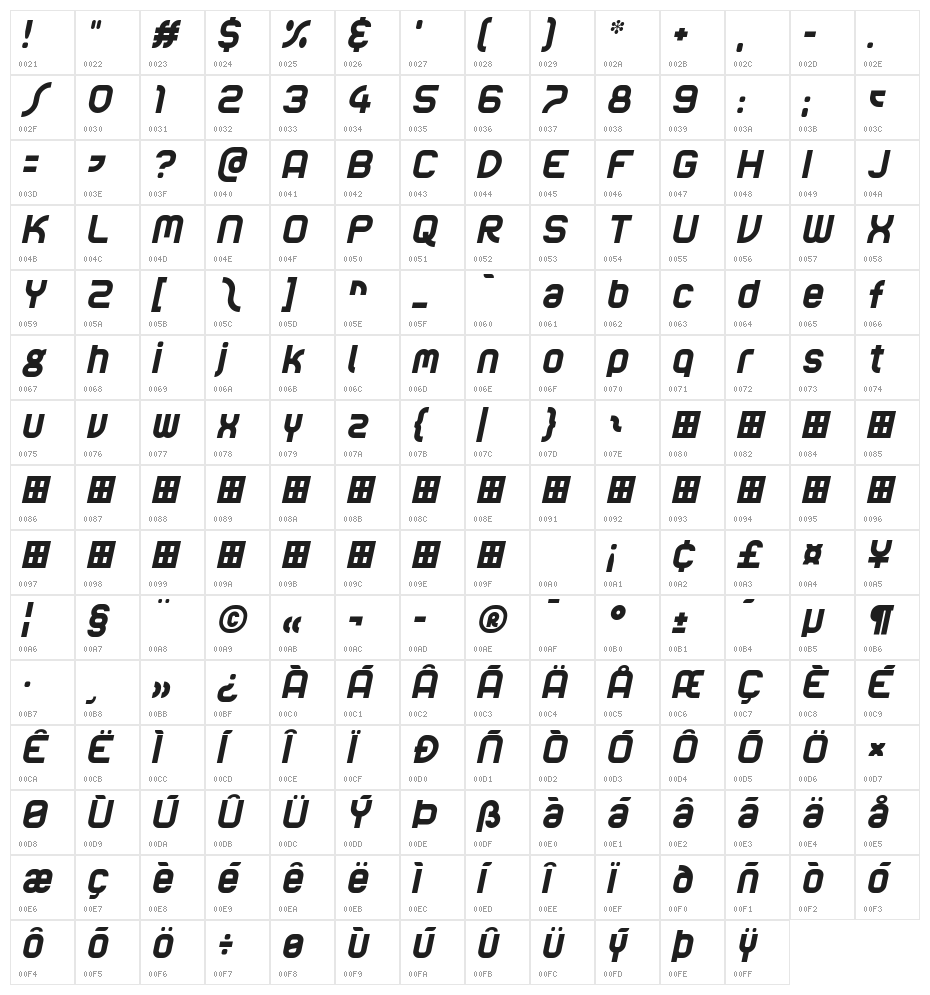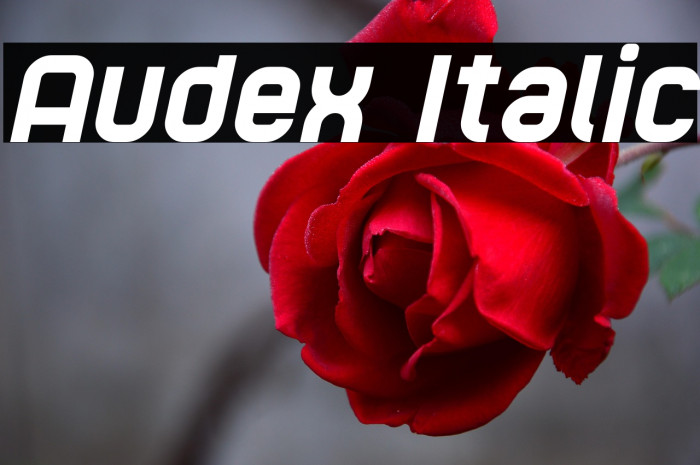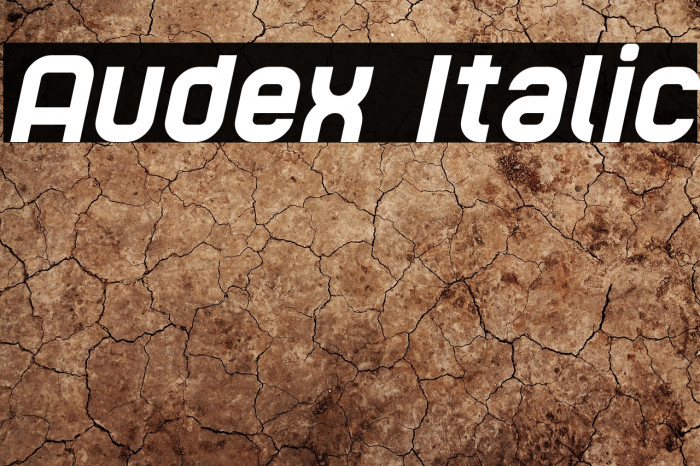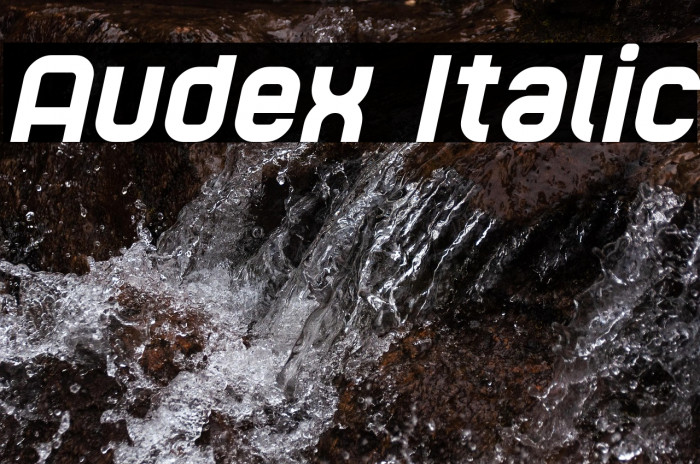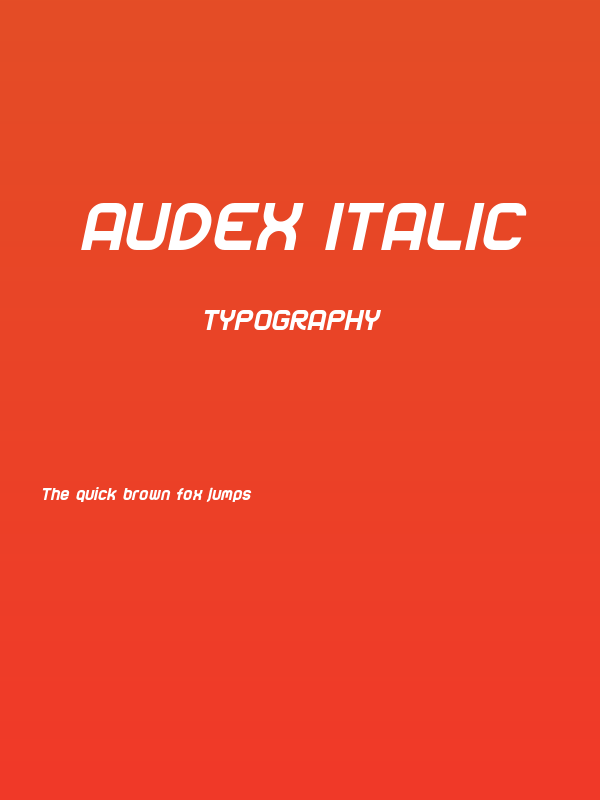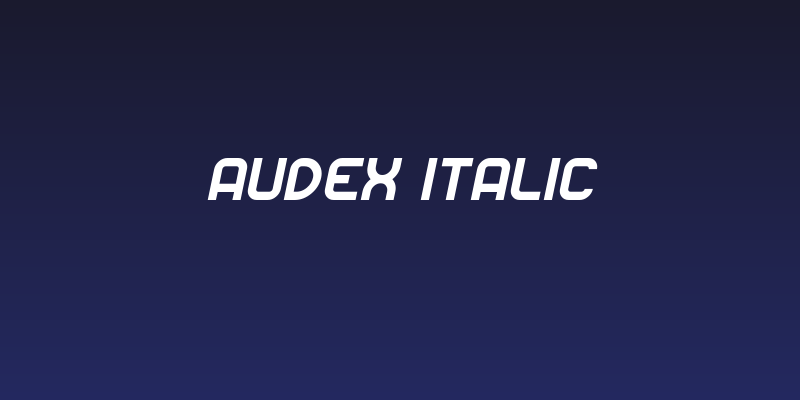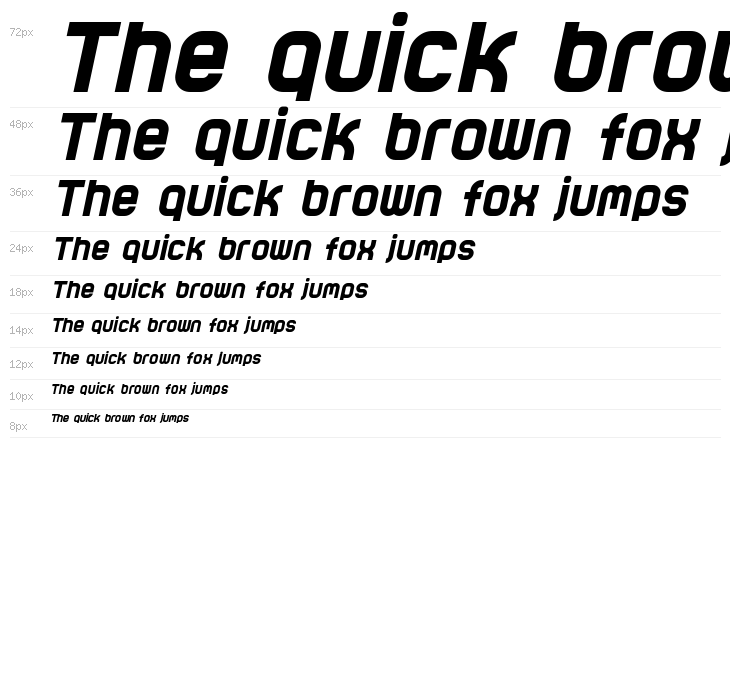
Audex Italic Font
Audex Italic Description
This font features a modern and sleek italic design, characterized by its smooth curves and slightly slanted letters. The uppercase and lowercase letters maintain a consistent style, with rounded edges and a uniform stroke width that gives it a cohesive look. The numerals and special characters are designed to match the overall aesthetic, providing a harmonious appearance across all characters. The font's italic nature adds a sense of motion and dynamism, making it suitable for contemporary and stylish applications.
| Use Case | Headlines, Logos, Digital media |
| Proposed Projects | Ideal for branding, advertising, and digital media projects that require a modern and dynamic touch. |